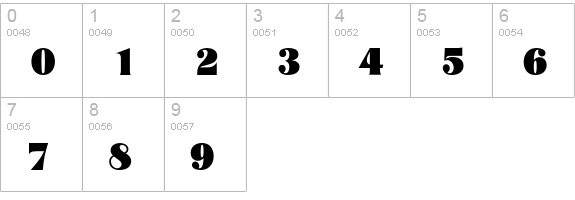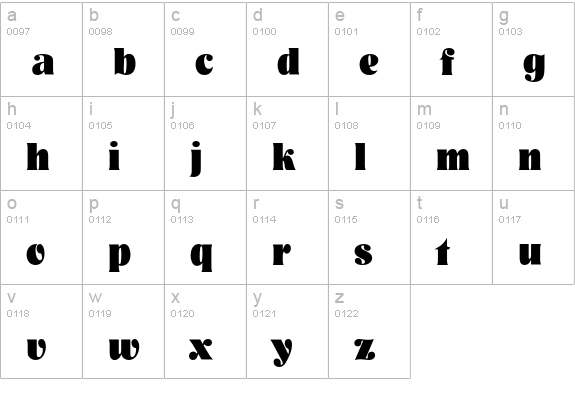
NashvilleEF-Heavy is a heavy, high-impact variant in the NashvilleEF typeface family \xE2\x80\x94 well suited to high-impact headlines, posters, and display advertising.
NashvilleEF-Heavy font is a bold and impactful typeface that exudes strength and confidence. Its thick, heavy strokes make a bold statement, perfect for headlines and eye-catching designs. This modern font is versatile and can be used for a variety of design projects, from posters to logos to branding materials. What's even better is that NashvilleEF-Heavy font is available for free download at FontsMarket.com. This means you can easily access this high-quality font without any cost, making it a valuable addition to your font collection. Don't miss out on the opportunity to elevate your designs with the striking NashvilleEF-Heavy font, now just a click away for free at FontsMarket.com.